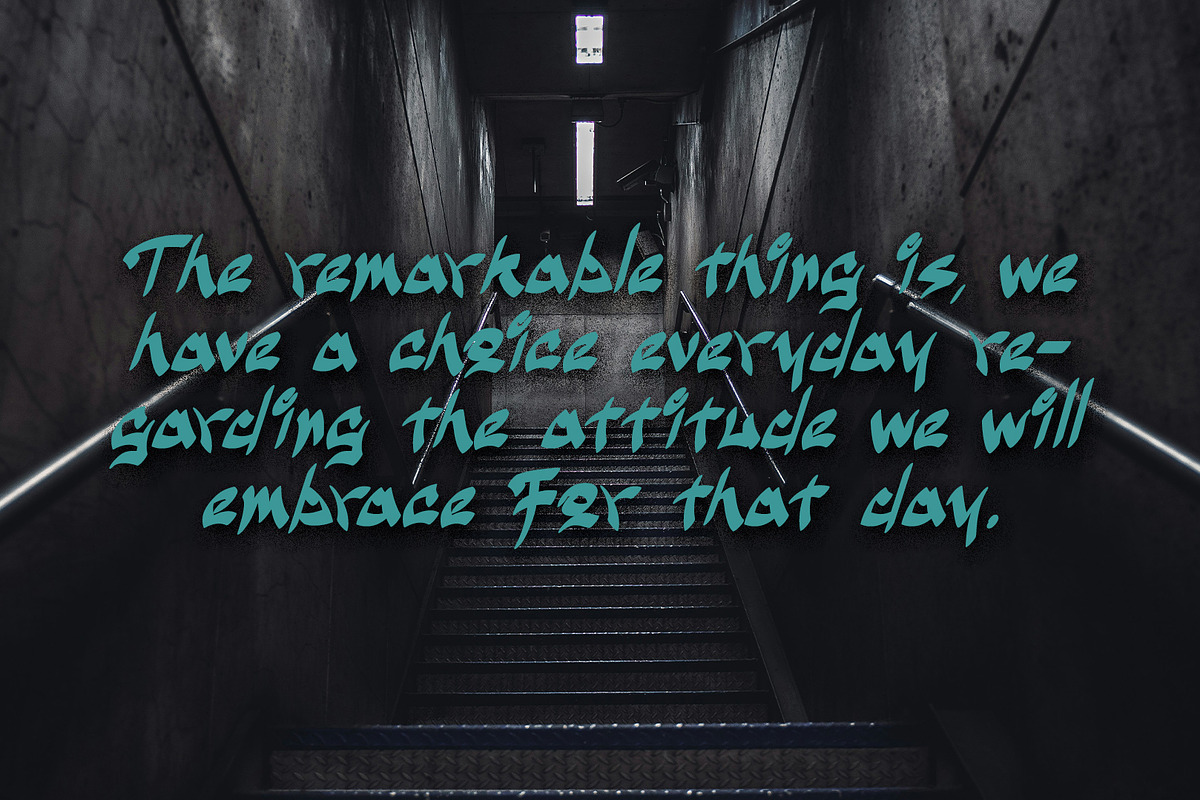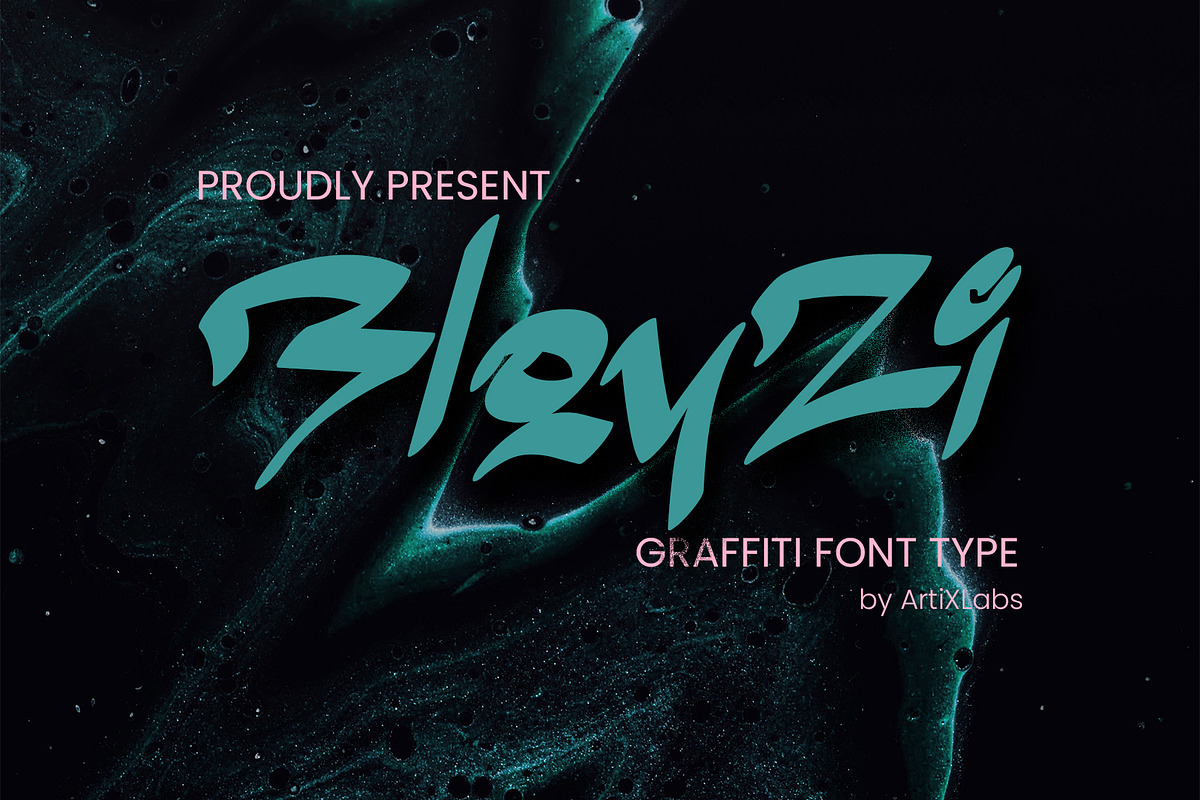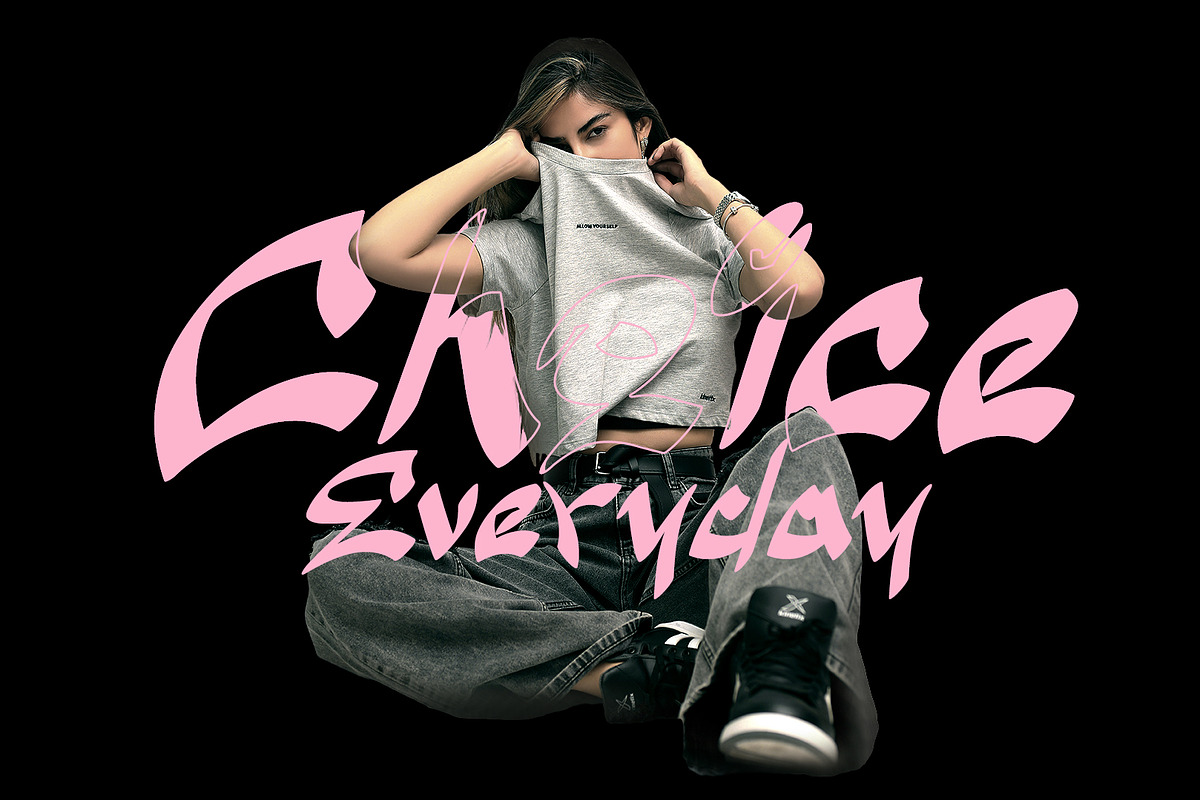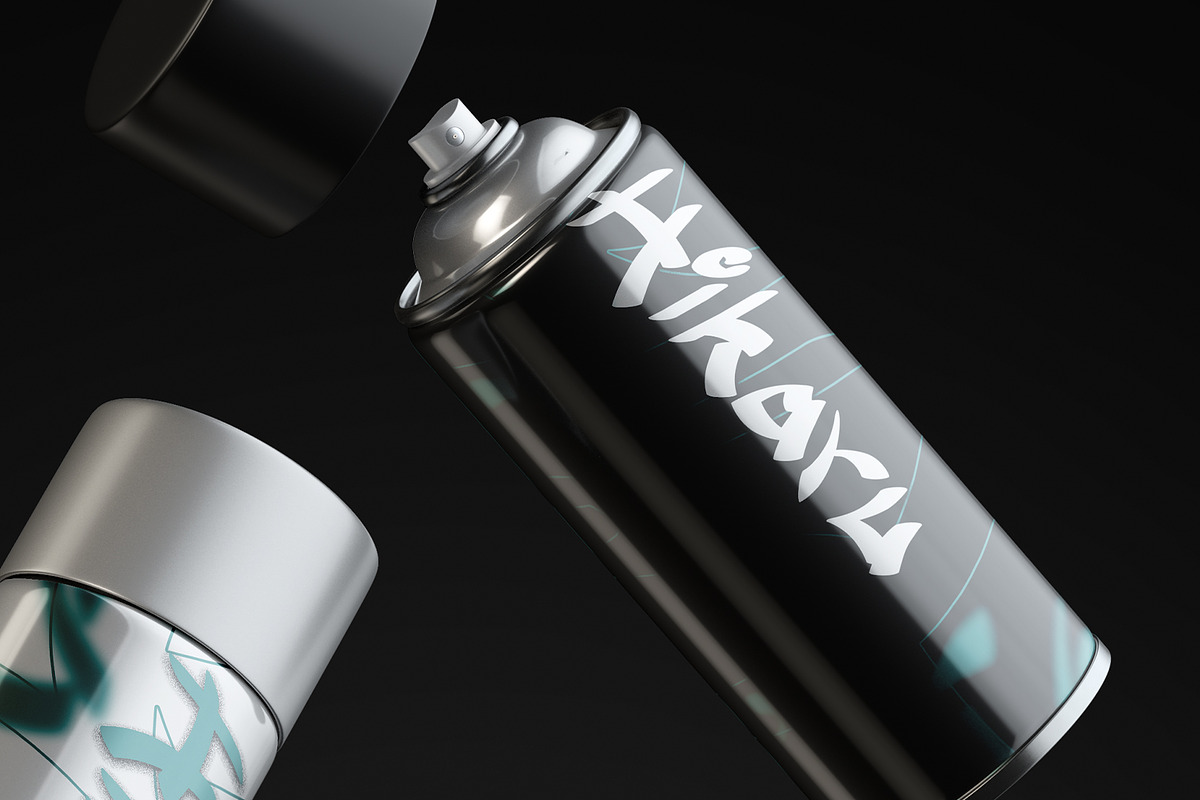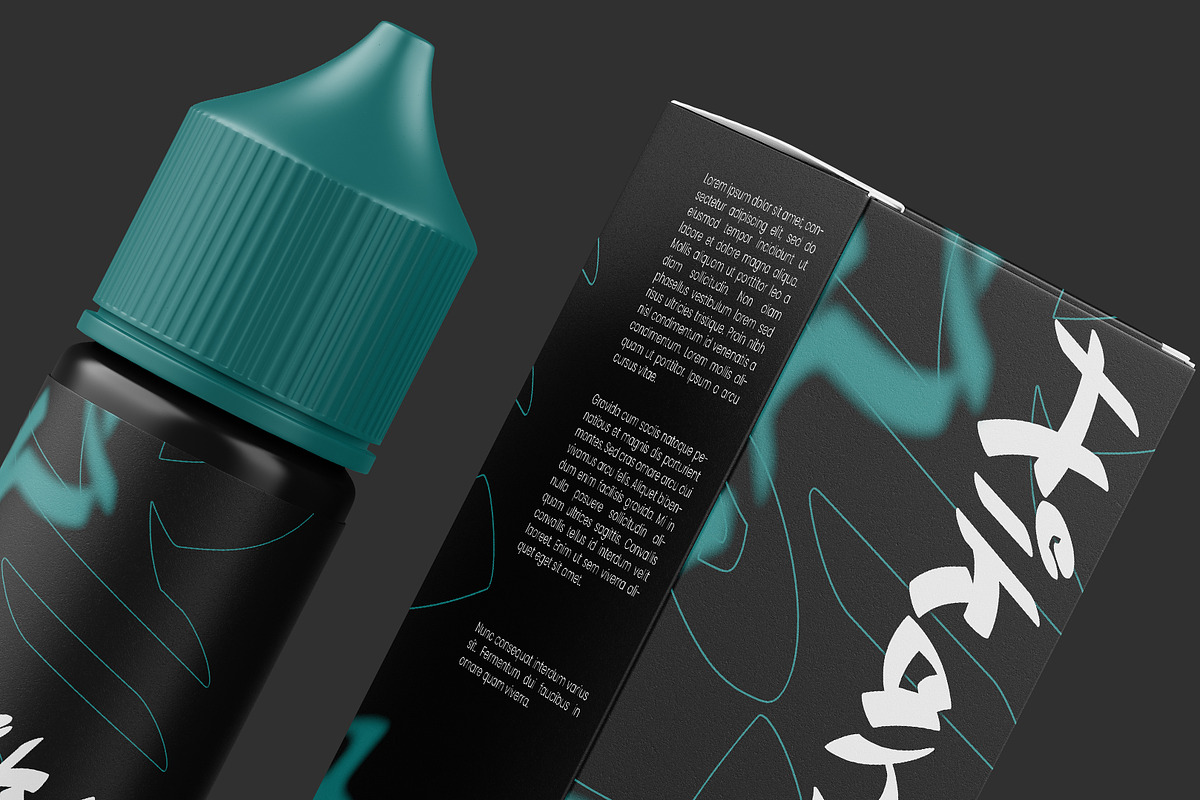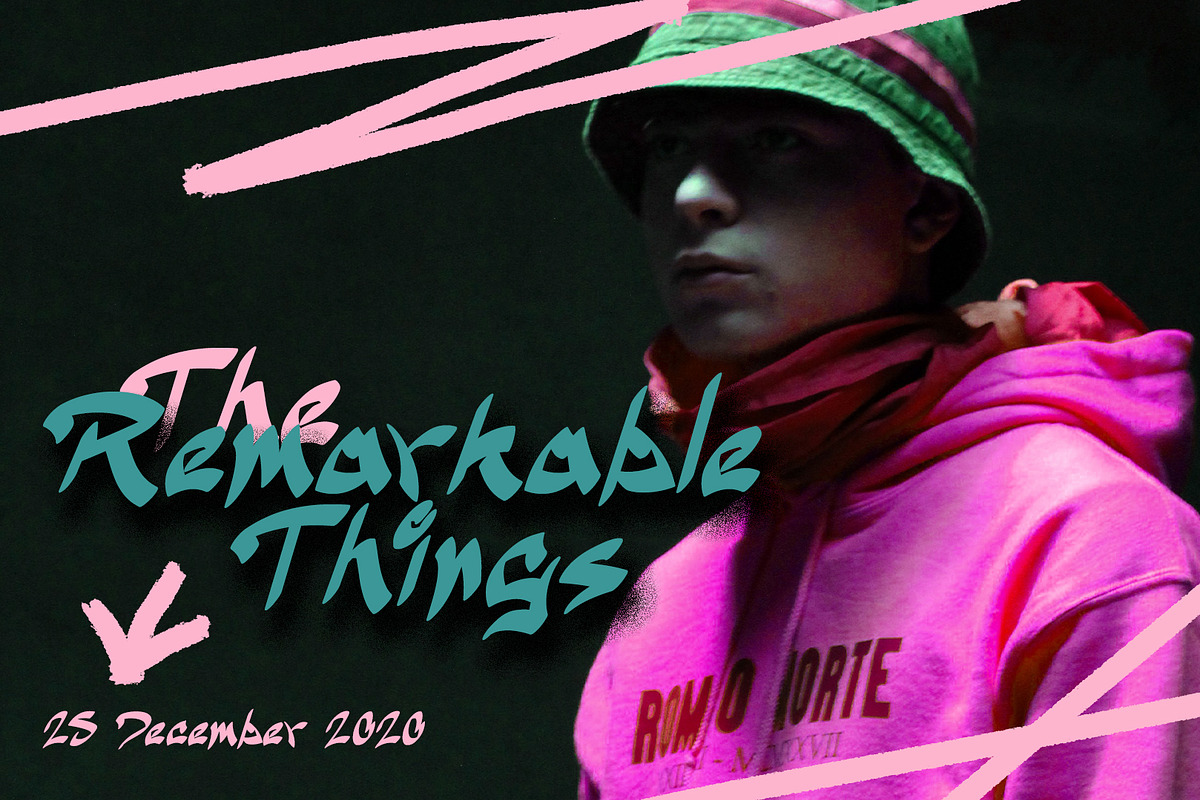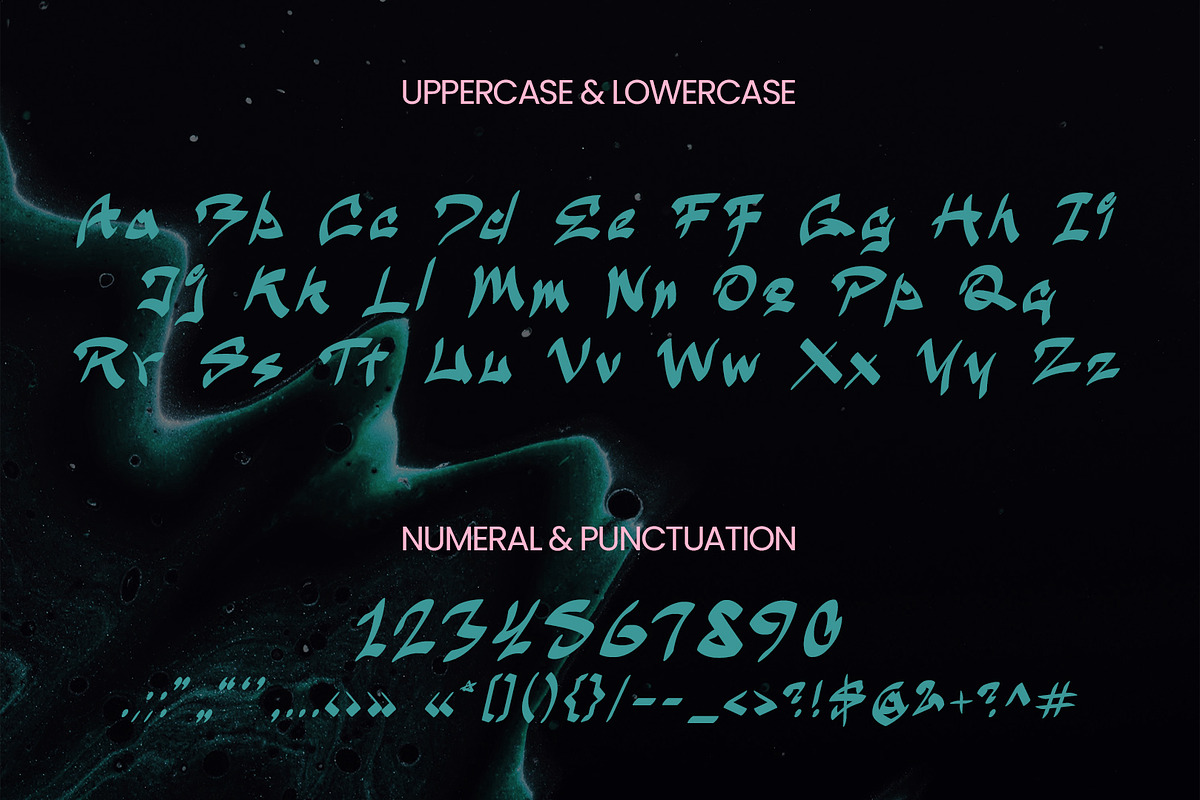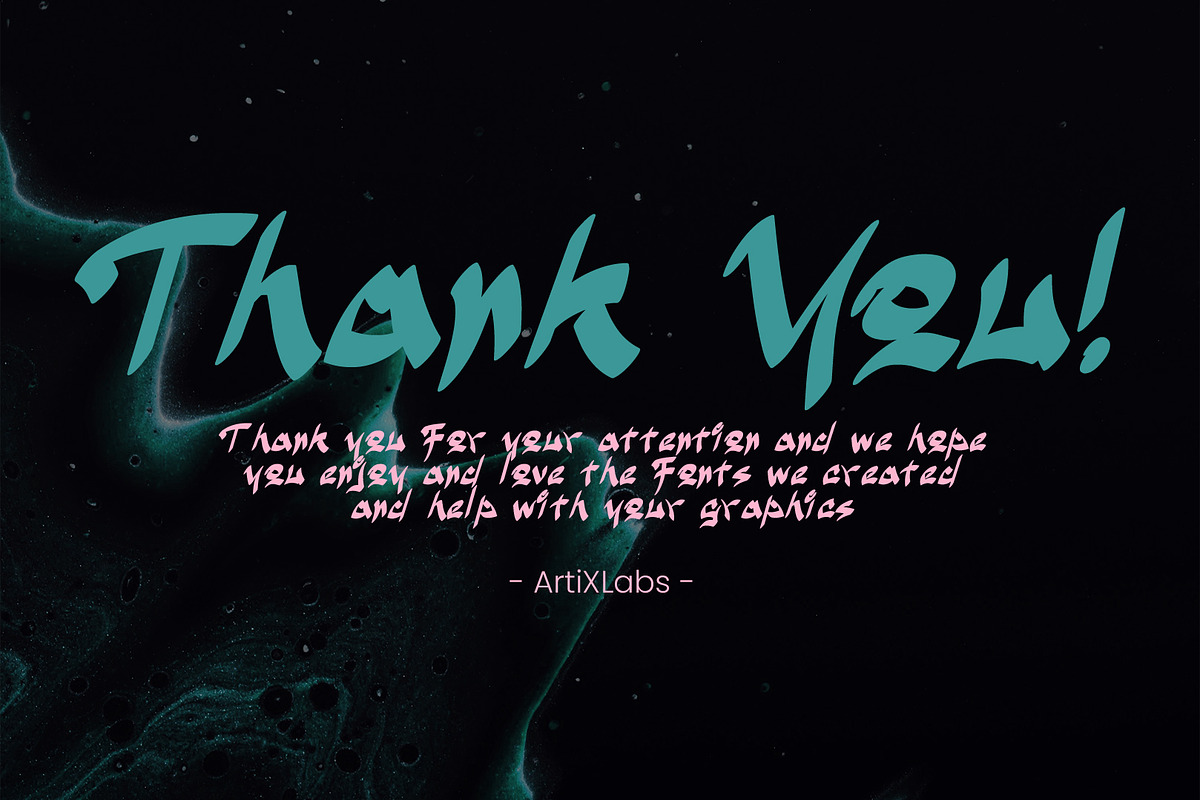
BloyZi Expressive Graffiti Font
Introducing BloyZi - Graffiti Font
This Font Template contains Urban, Street, Liar, Expressive, Creative, Professional and Unique Concept.
\- Uppercase & Lowercase letters
\- Numbering and Punctuations